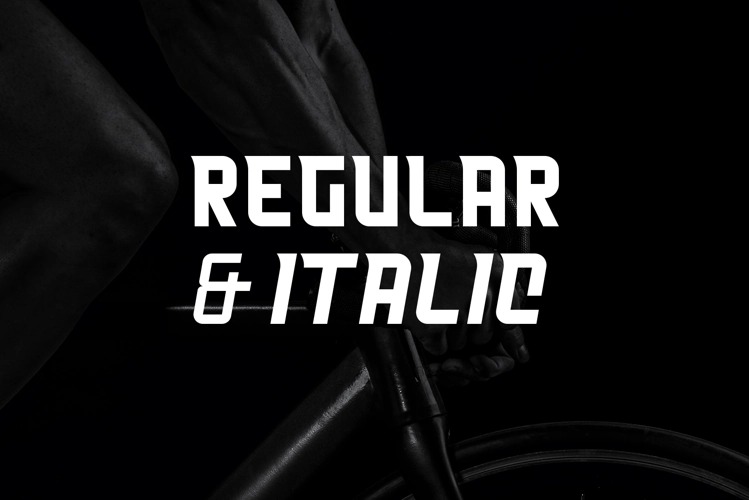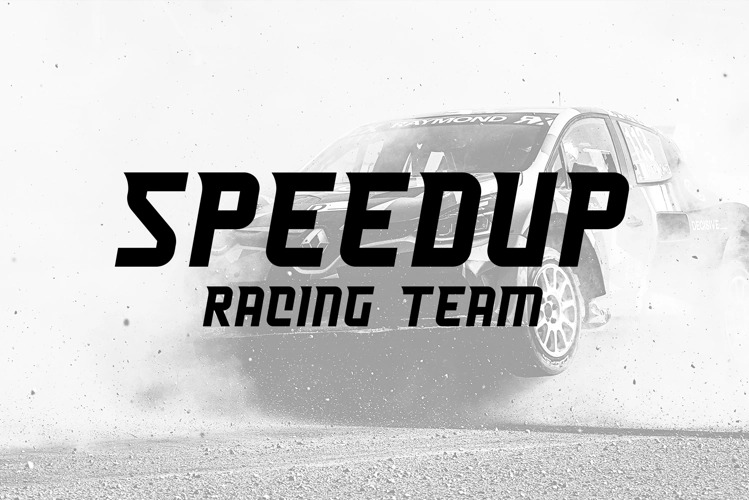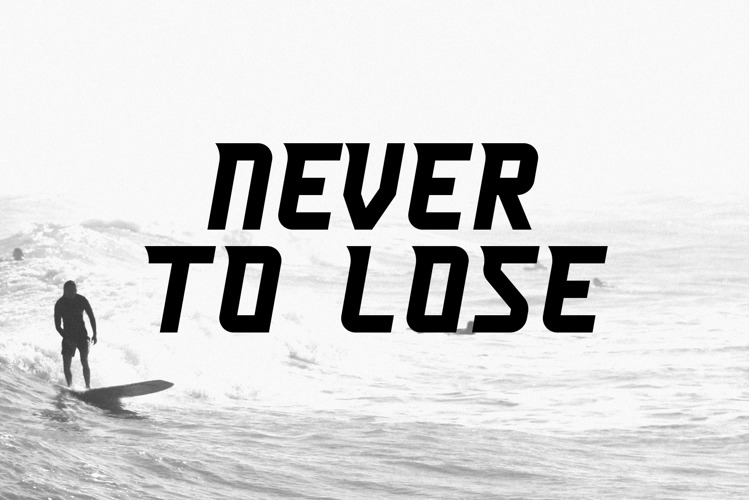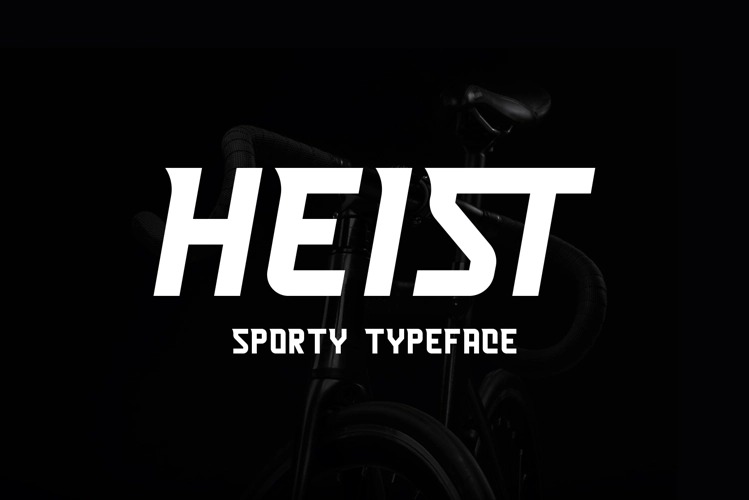
Heist Font
Heist Display Font
This is an sports sans serif display font, and with a style that is very different from the others. It can be added to various designs related to athletic events, racing or speed. Have fun with this beautiful font and explore its endless variations.